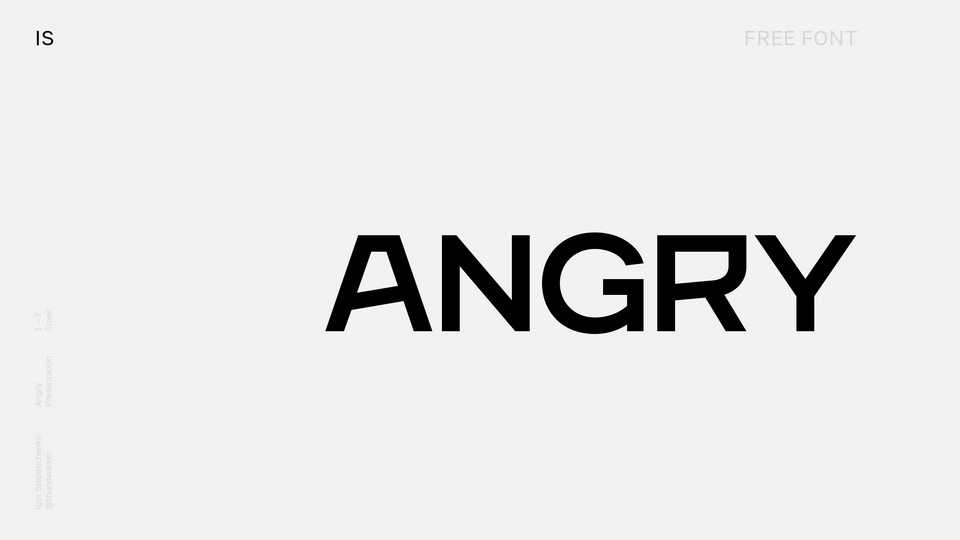
Download Angry font, a bold display typeface specially designed for swearing. Angry is a geometric sans serif with evil letters that looks best in logos, titles, and large-scale design of angry text.
Designer: Igor Stepanchenko